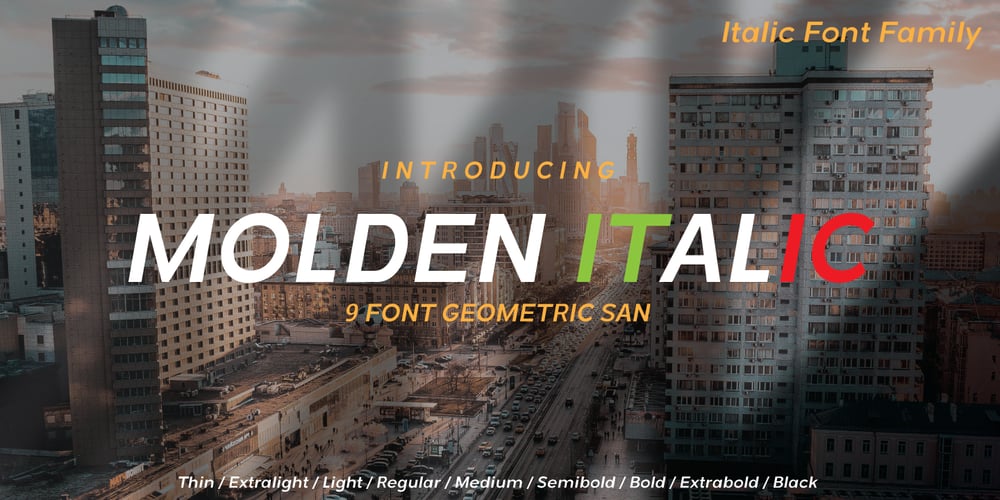
Molden Italic
Molden Italic font
Molden Italic Font Family was designed by Muhammad Suhery and published by Phonnastudio. Molden Italic contains 9 styles and family package options. Molden italic is a thin and black sans-serif font with a minimalist style. it has a family font. This font fits a wide variety of designs and it is comfortable to see. It can be used to make wedding invitations, branding, logos, books, magazines, quotes, greeting cards, and anything else that calls for a handwritten touch.